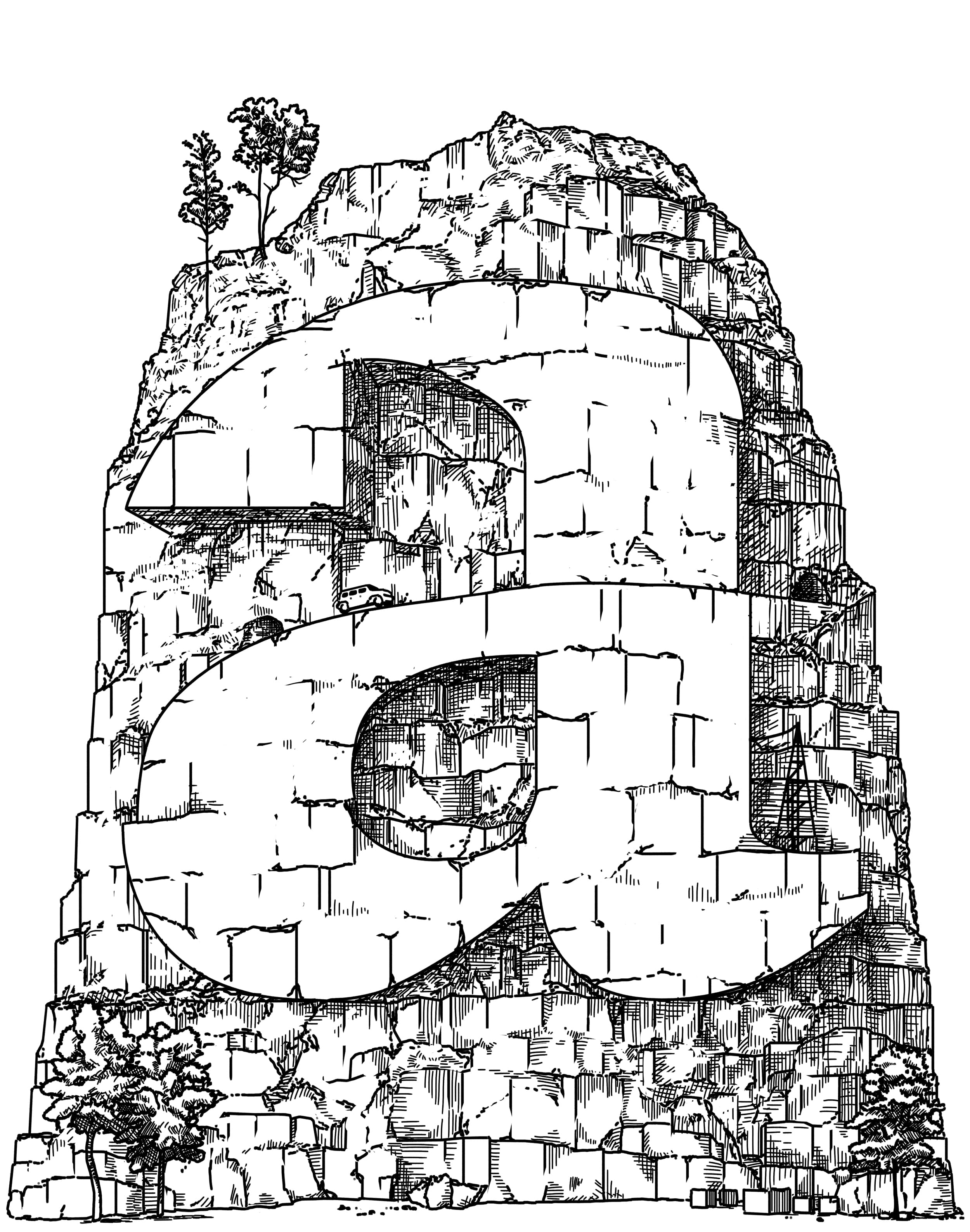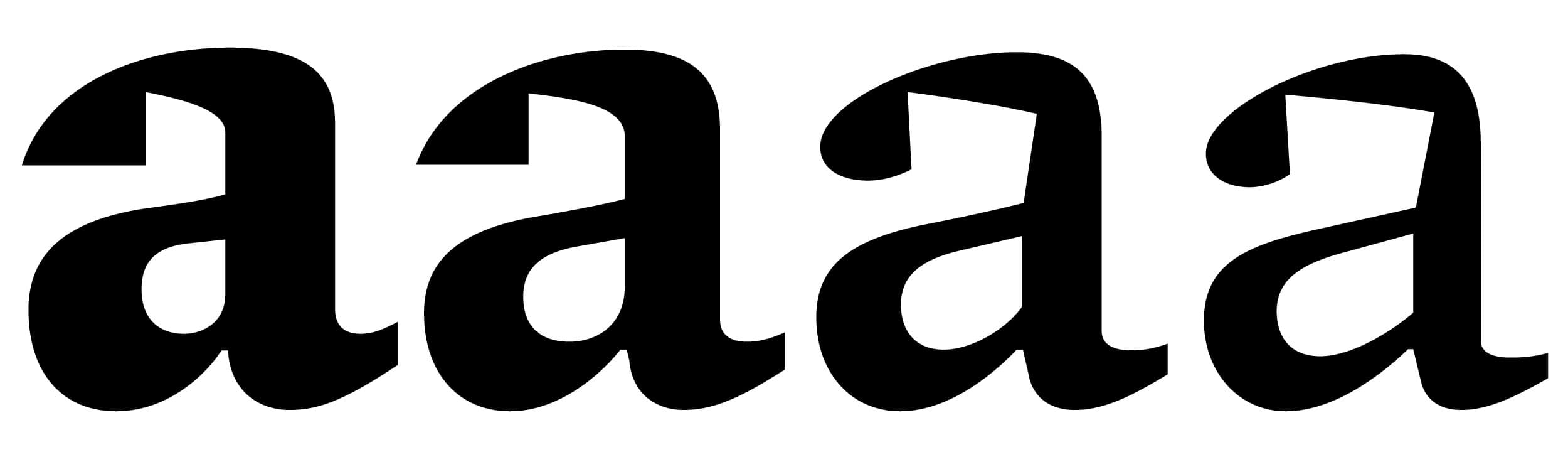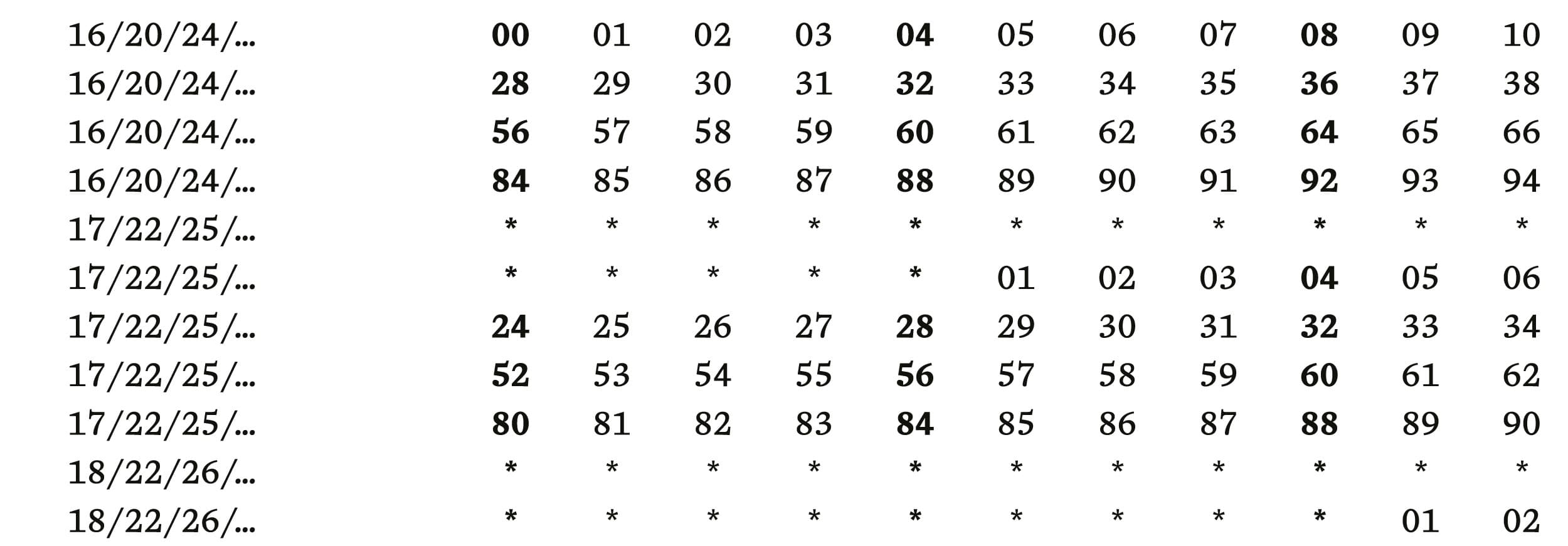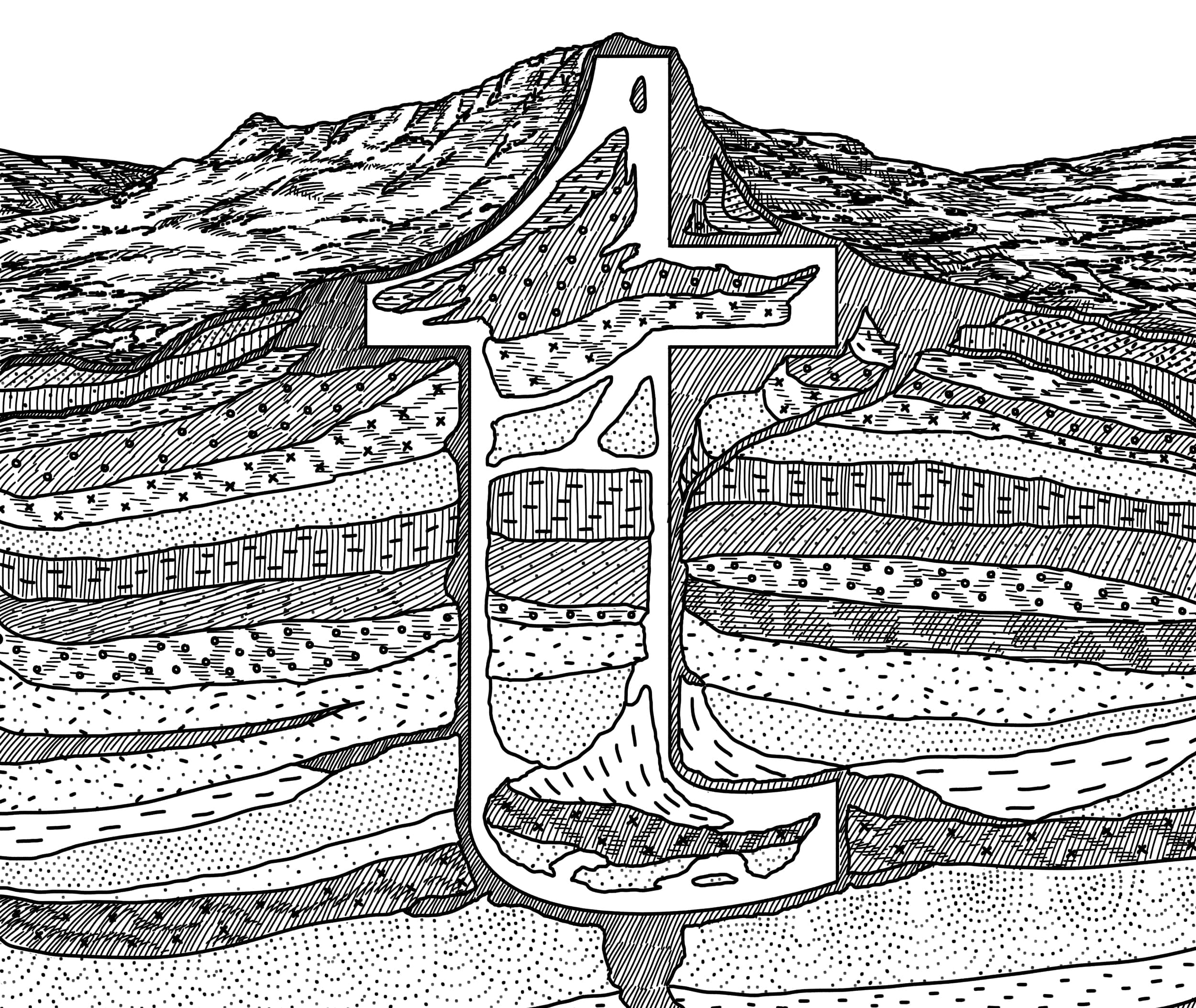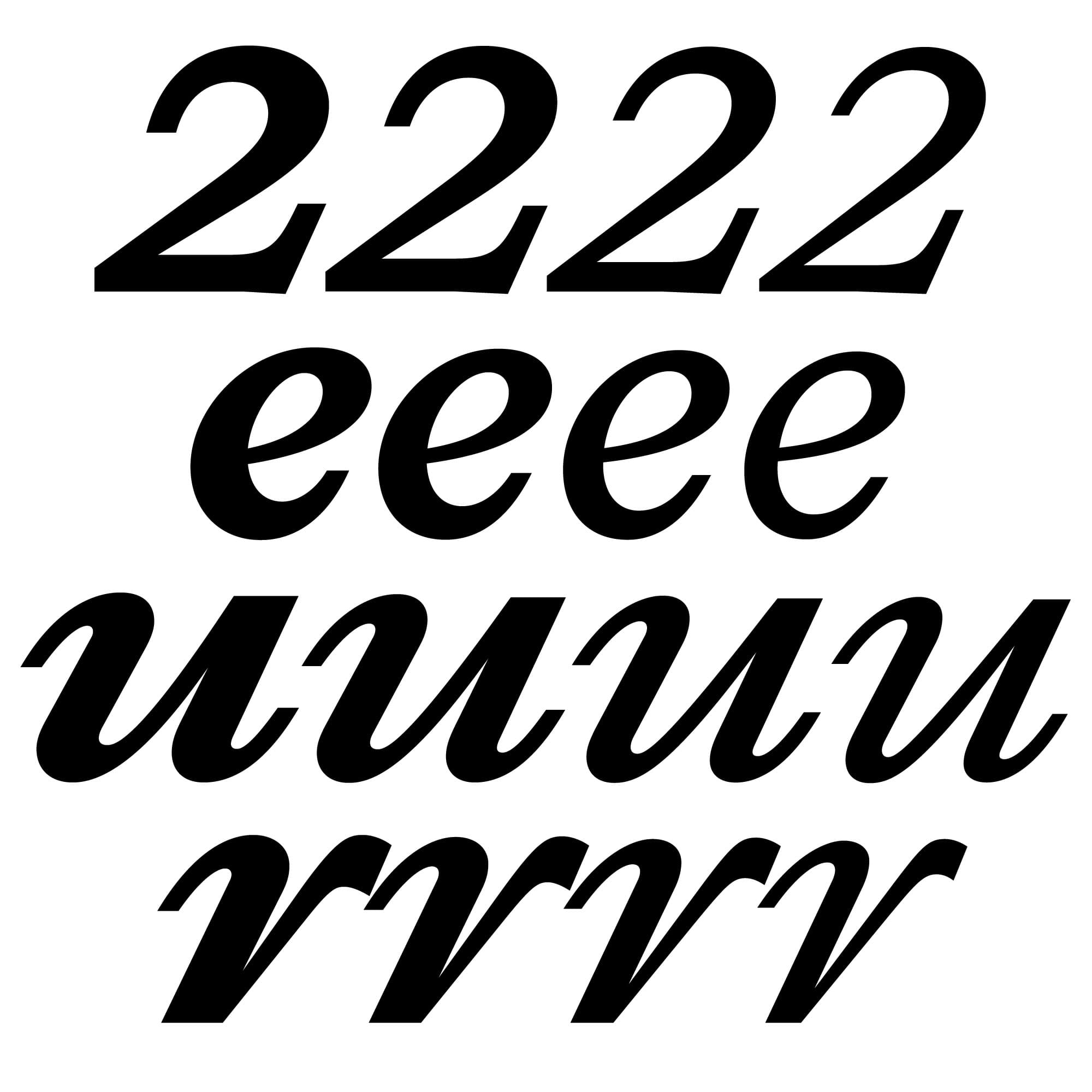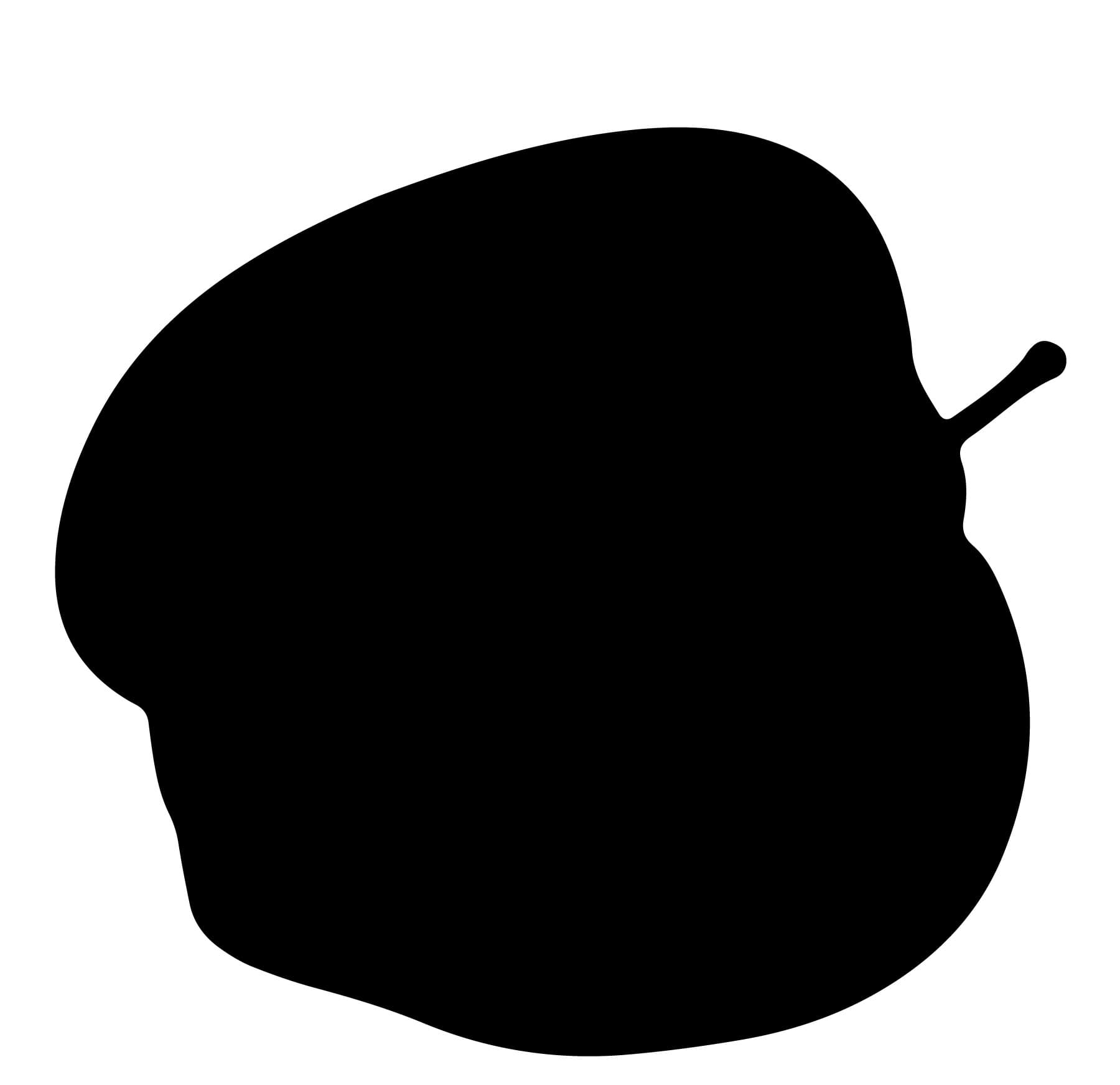
Eterne Text
Eterne Text’s refined clarity of construction imparts impeccable readability to an unconventional model. This polished pop recontextualizes the joie de vivre that makes its display sibling so striking. Taking cues from the Marionette Formula proposed by W. A. Dwiggins, unexpected cuts and curves of the letterforms possess a lively tension and draw attention to the push-and-pull of space and counter-space. Shallow-shouldered arches, low contrast, and evenly proportioned terminals recall Miller & Richard’s Old Style Antique No. 7, translating the drama and gesture of the Eterne family into a system that is eminently scalable.